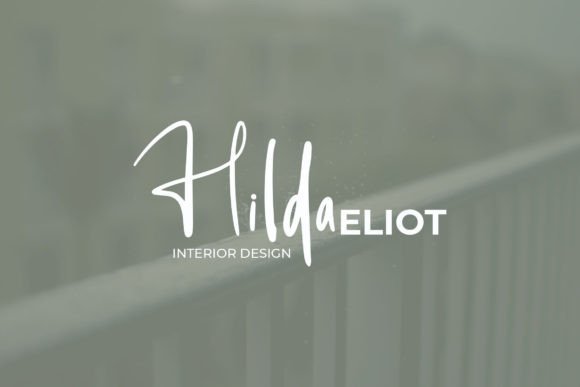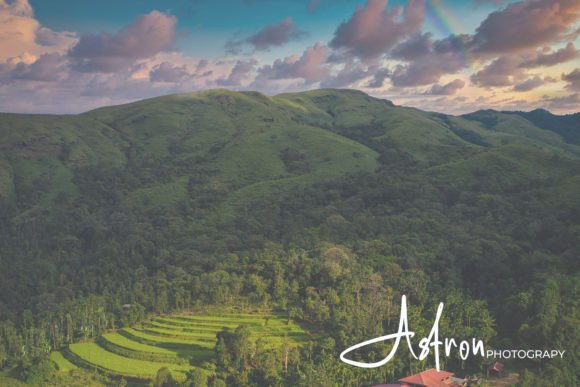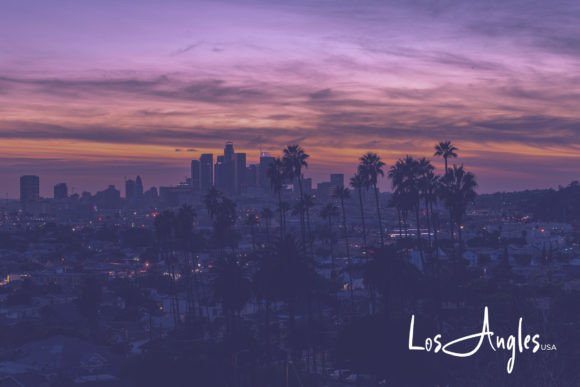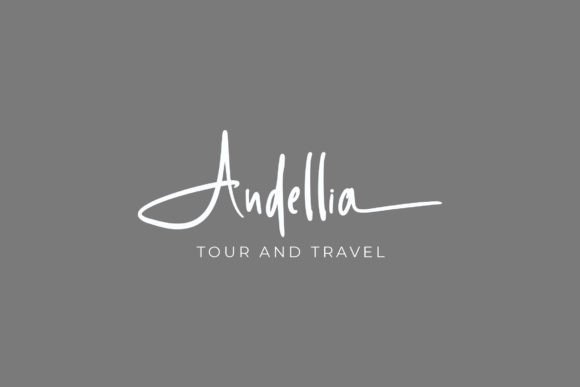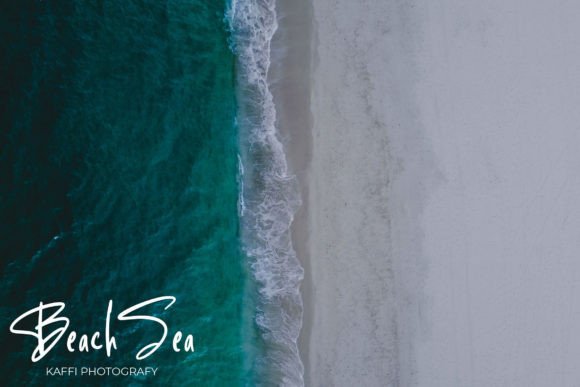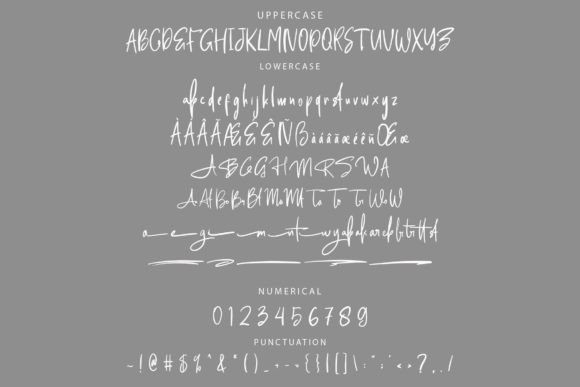
Unlock the Secret to Timeless Design with Amotta Ragenta Font
Have you ever stared at a blank page, struggling to find the perfect font to convey your creative vision? We’ve all been there. But what if I told you that there’s a font that can elevate your designs from ordinary to extraordinary? Say hello to Amotta Ragenta, a beautifully crafted handwritten font that adds a touch of sophistication and personality to your work.
With its uniquely shaped characters, Amotta Ragenta Font is more than just a font – it’s an experience. Whether you’re a seasoned designer or a creative enthusiast, this font has the power to make your designs stand out from the crowd. Its elegance and charm make it a valuable asset for any project, from branding and marketing to typography and editorial design.
Key Features of Amotta Ragenta Font
- Font Family: Amotta Ragenta is a premium, modern script font family designed for creative and elegant typography. It includes multiple styles, such as Regular, Italic, Bold, and Bold Italic.
- Character Set: The font includes a wide range of characters, including uppercase and lowercase letters, numbers, punctuation marks, and special characters, making it suitable for various languages.
- Unique Characteristics: Amotta Ragenta Font features a unique, hand-drawn design with subtle brush strokes, giving it a personal and artistic touch. The font is ideal for creative projects, such as branding, advertising, and editorial design.
Amotta Ragenta Font Review
At first glance, the Amotta Ragenta Font seems to be a beautiful and elegant script font. ✨ The intricate details and unique character shapes make it perfect for creating visually stunning designs. ✨ The font’s fluidity and organic feel give it a high-end, premium look that’s sure to impress.
However, upon closer inspection, some limitations start to reveal themselves. ⚠️ For one, the font can be quite challenging to read in smaller text sizes, which may limit its use in certain applications. Additionally, the font’s lack of uniformity in letter spacing can make it difficult to achieve a consistent look across different designs.
Here are some specific features to consider:
- Pros:
- Beautiful, elegant design
- Unique character shapes and details
- Perfect for high-end, premium designs
- Cons:
- Challenging to read in smaller text sizes
- Lack of uniformity in letter spacing
Overall, the Amotta Ragenta Font is a great choice for designers looking to create sophisticated, elegant designs. While it may have some limitations, its unique beauty and high-end feel make it a worthwhile investment for the right projects.
Tips for Getting the Most Out of Amotta Ragenta Font
To get the most out of the Amotta Ragenta font, use it for:
- Creative and artistic projects.
- Headings and titles for added visual impact.
- Emphasizing important text by using it for key phrases or sentences.
The Amotta Ragenta font is commonly used for:
- Marketing materials and advertisements.
The Amotta Ragenta Font is a unique, handwritten font suitable for creative and artistic designs. However, there are other alternatives that offer similar styles and characteristics. Here are a few options for designers: